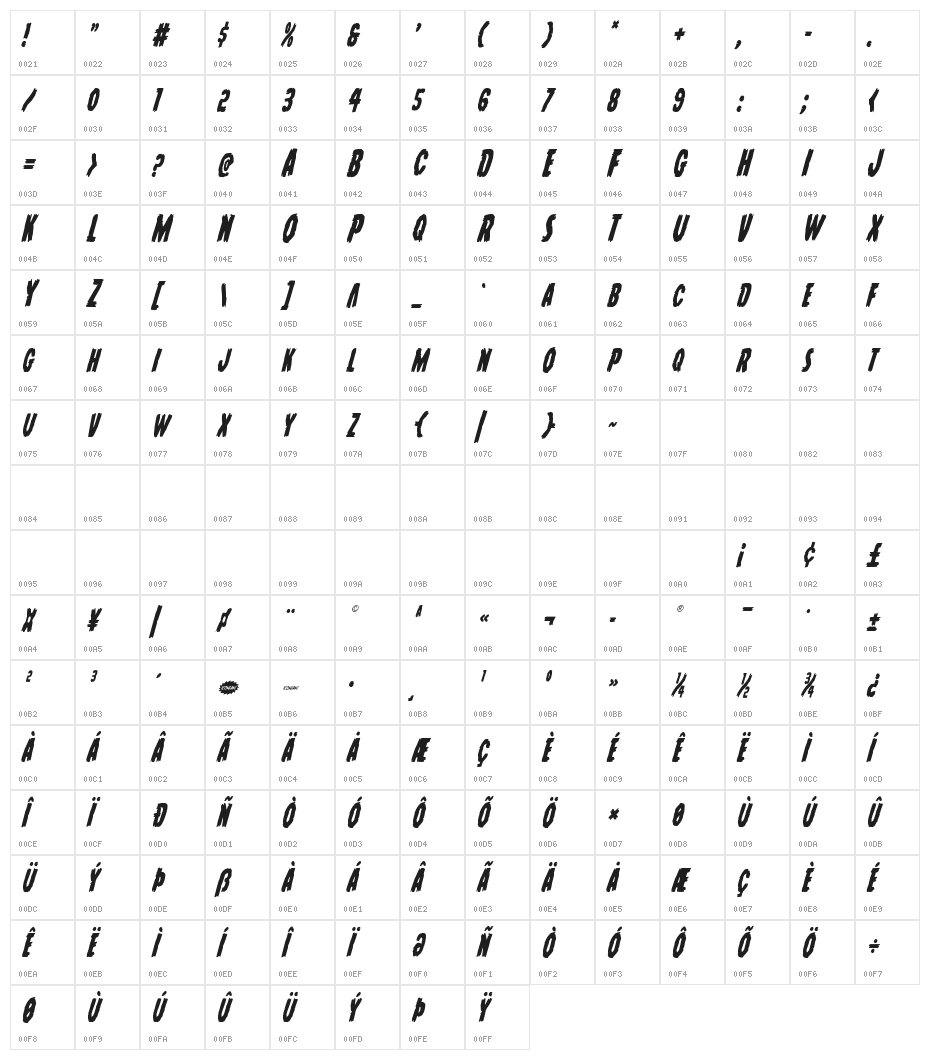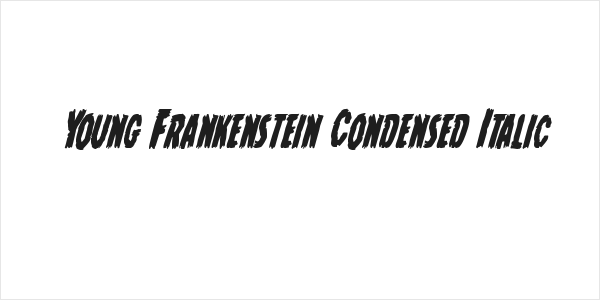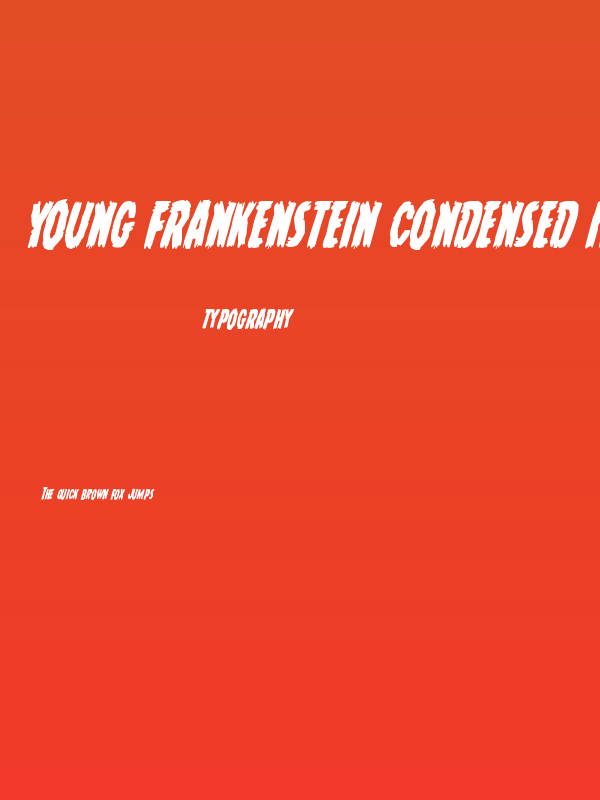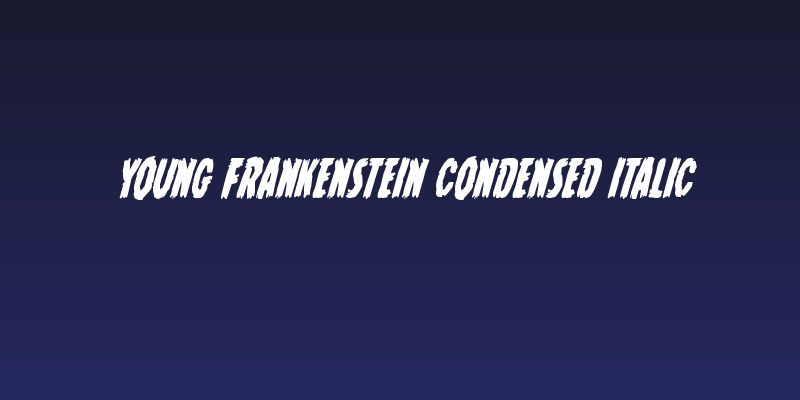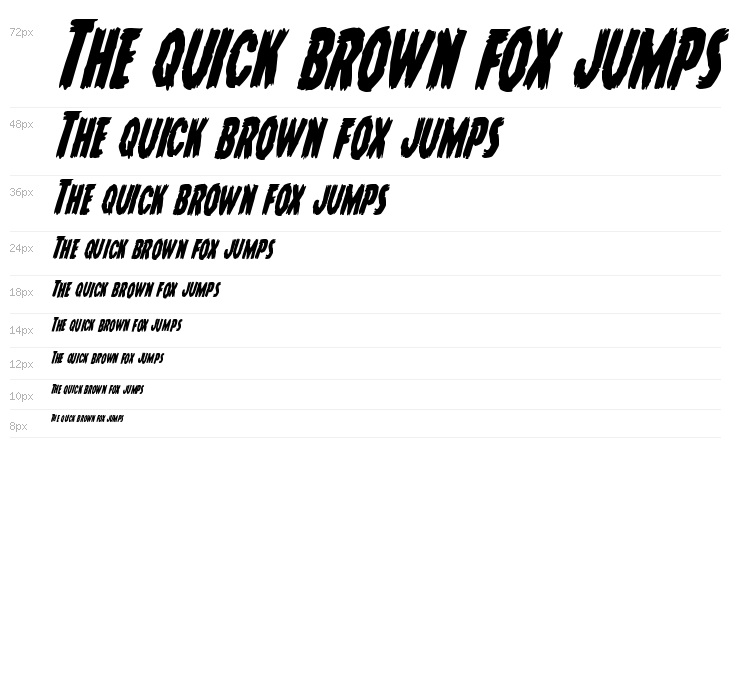
Young Frankenstein Condensed Italic Font
Young Frankenstein Condensed Italic Description
This font features a bold, condensed style with a distinctive italic slant, creating a dynamic and energetic appearance. The characters are heavily stylized with sharp, jagged edges that evoke a sense of urgency and movement. The uppercase letters are particularly striking, with a strong presence that demands attention. The numbers and special characters maintain the same bold and edgy aesthetic, ensuring consistency across all text elements. This font's unique design makes it ideal for projects that require a dramatic and impactful visual statement.
| Proposed Projects | Ideal for horror-themed posters, movie titles, Halloween event flyers, and edgy branding projects. |